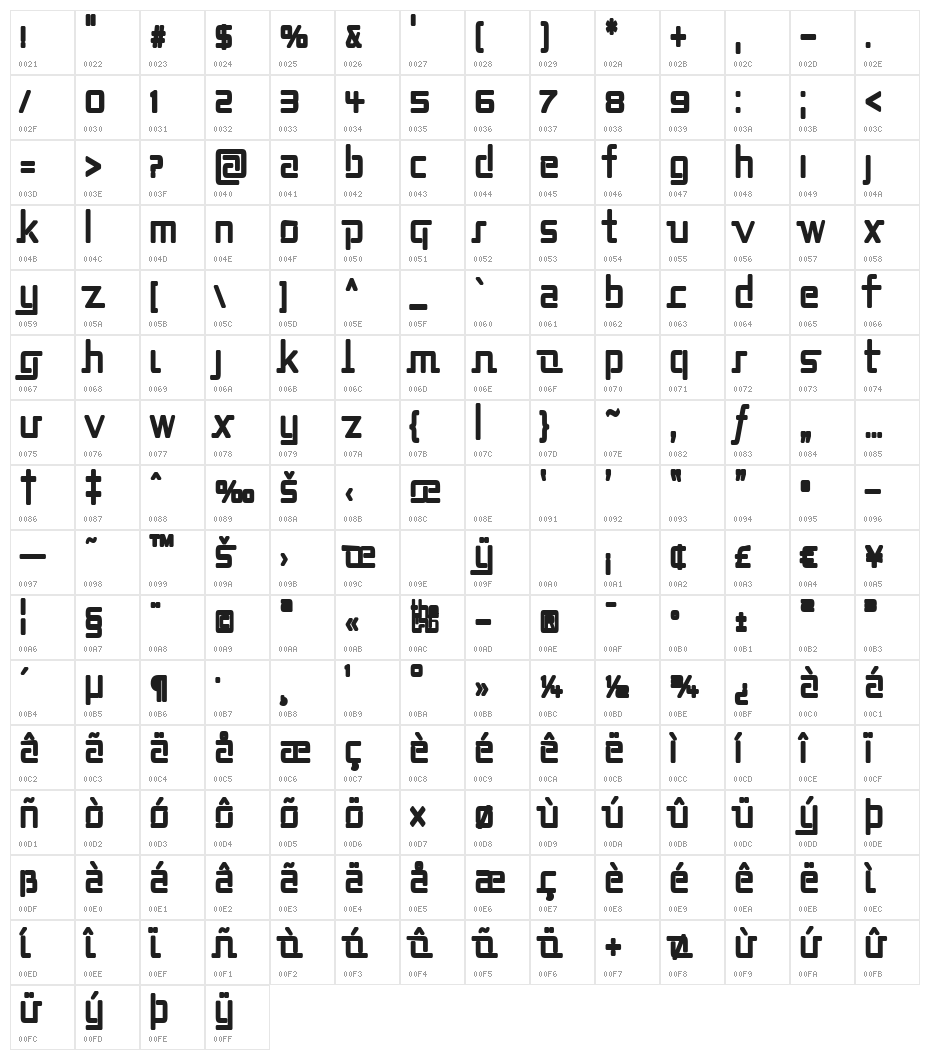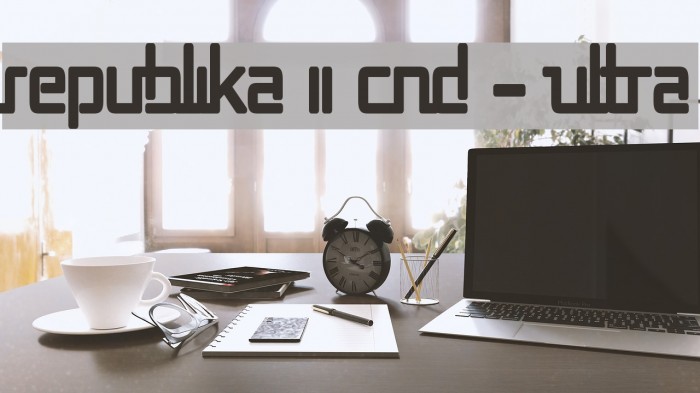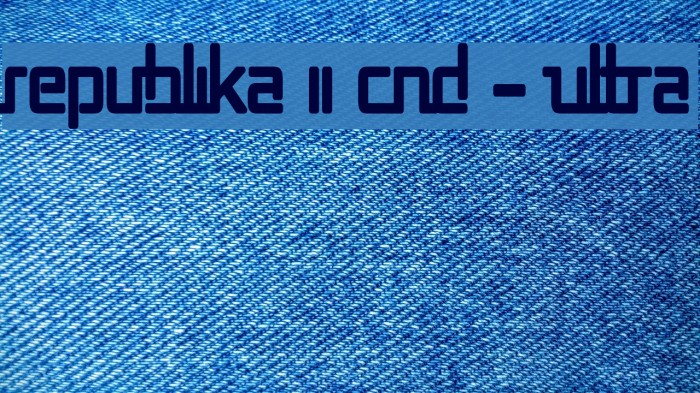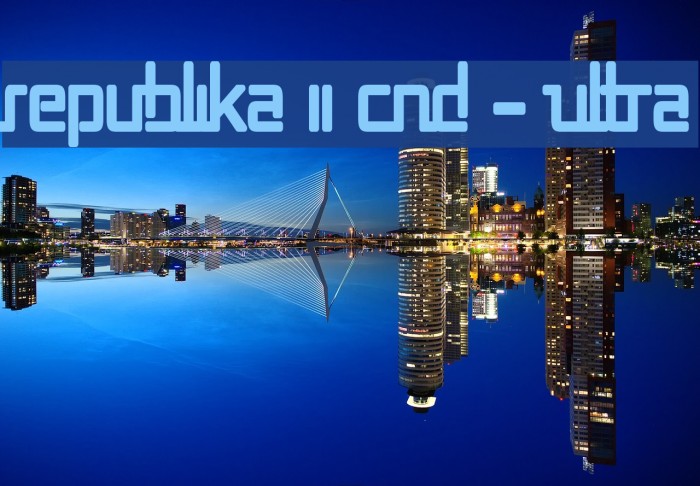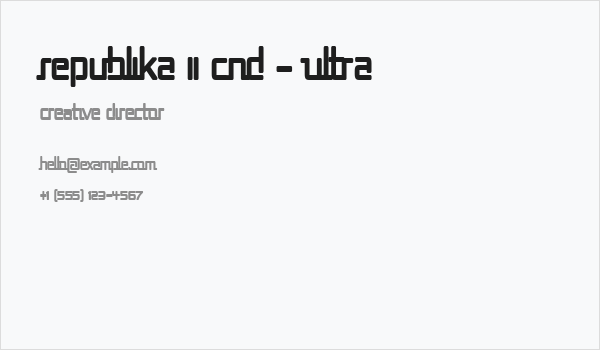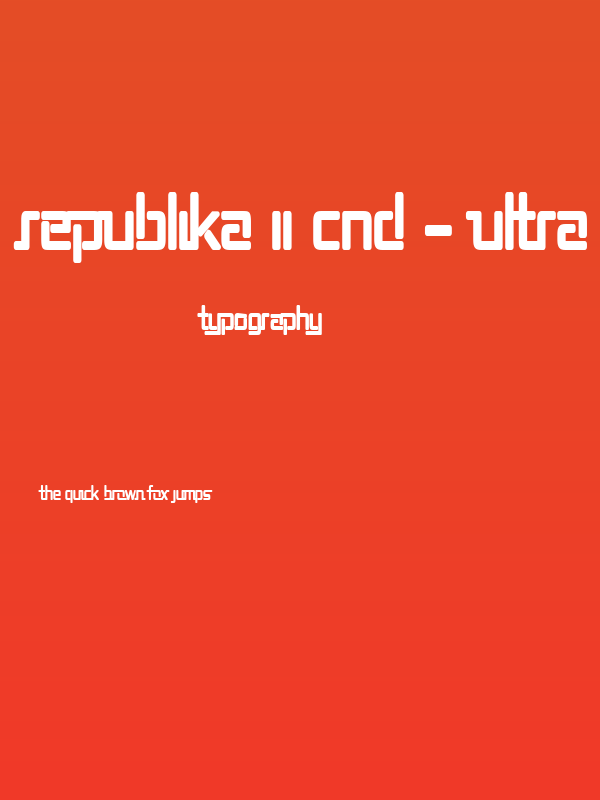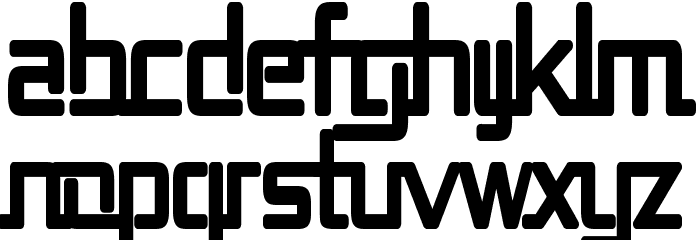
Republika II Cnd - Ultra Font
Republika II Cnd - Ultra Description
This font features a bold, geometric design with a distinctly modern and futuristic aesthetic. The characters are constructed with thick, uniform strokes and rounded corners, giving them a sturdy and cohesive appearance. The uppercase and lowercase letters maintain a consistent height, contributing to a compact and streamlined look. The numerals and special characters follow the same design principles, ensuring uniformity across all glyphs. The overall style is highly legible, making it suitable for attention-grabbing headlines and display purposes.
| Proposed Projects | Ideal for technology branding, futuristic posters, video game titles, and modern advertising campaigns. |